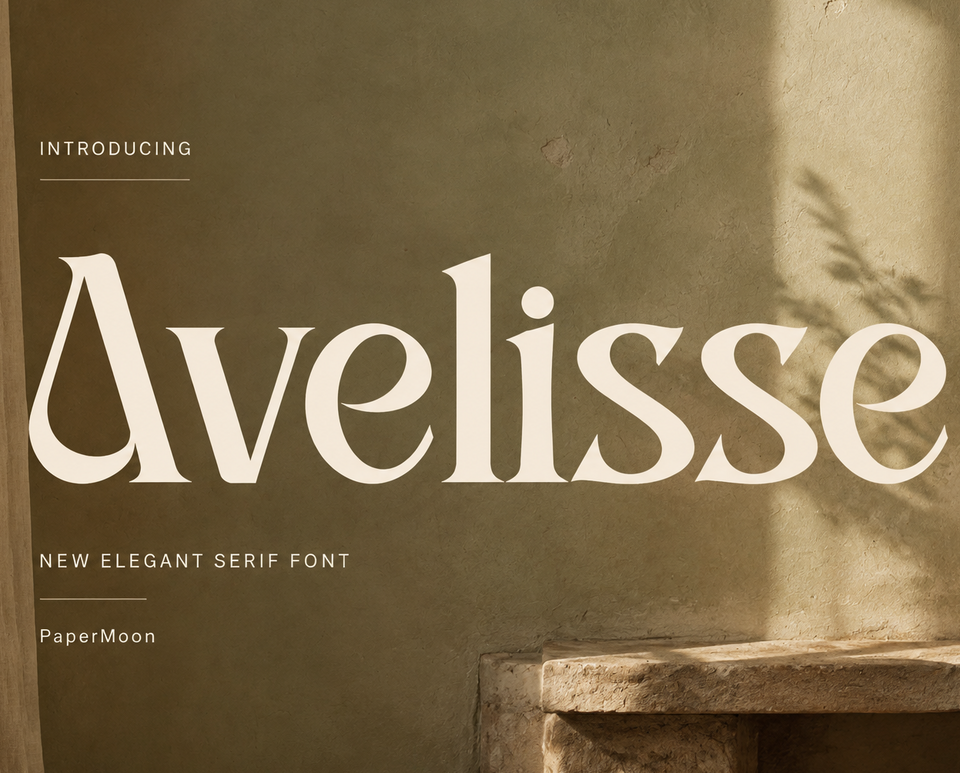
Avelisse — Modern Luxury Serif Font for Branding & Editorial
Avelisse is an elegant modern luxury serif font crafted for high-end branding, editorial layouts, luxury packaging, and sophisticated visual identities. Clean sharp serifs, graceful curves, and refined contrast give it a polished editorial character that reads as premium without feeling cold — a dependable voice for logo design, brand identities, fashion and beauty campaigns, magazine spreads, wedding invitations, event stationery, luxury website headers, and social media graphics.
Key features:
A rich custom ligature set (OO, SS, KE, KU, KO, LE, LO, LU, RU, RO, RE, plus lowercase joins like ab, ah, am, an, cb, ch, cm, cn, eb, eh, em, en) keeps headline letter pairs flowing naturally instead of colliding.
Stylistic alternates for H, M, N, S, V, and W give wordmarks and short display lines a bespoke, made-to-order finish.
Applications:
High-end logo design and brand identity work.
Fashion and beauty packaging, product labels, and boutique collateral.
Editorial design and magazine layouts, including headlines, pull quotes, and mastheads.
Wedding invitations, save-the-dates, and event stationery suites.
Luxury website headers and social media graphics.
Add Avelisse to your toolkit when your next brand identity, packaging project, editorial feature, or wedding suite needs an elegant modern serif with a refined, luxurious finish.